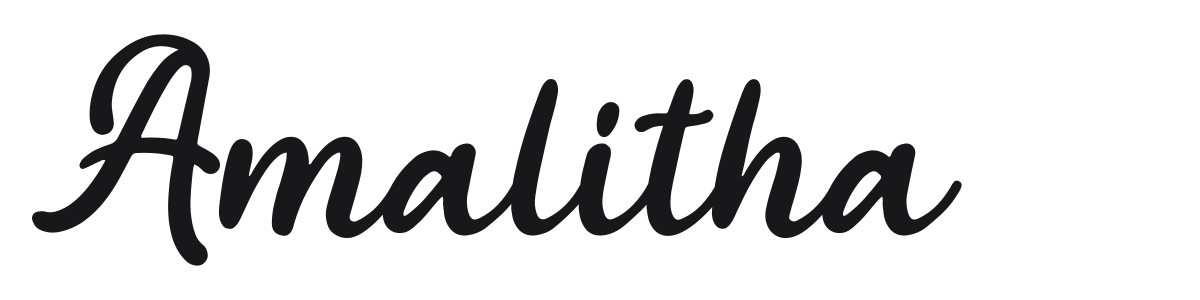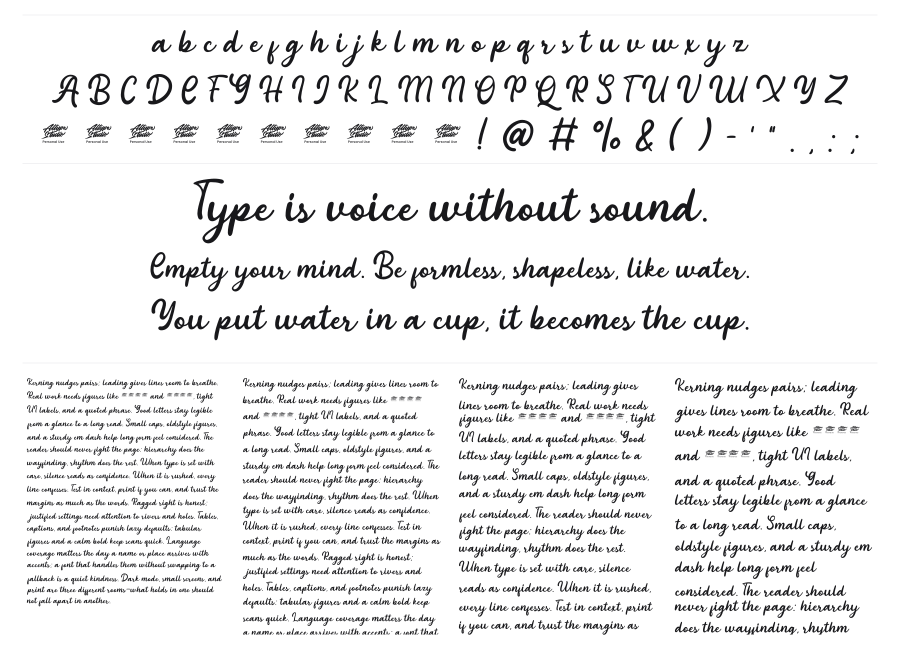
Amalitha
Amalitha is a casual connected script with a warm, handwritten personality built from smooth flowing strokes and looping joins. The moderate stroke contrast and rounded terminals keep it feeling natural rather than formal, sitting comfortably between polished calligraphy and everyday handwriting. It brings an easy, approachable energy to logos, packaging, and social media graphics.